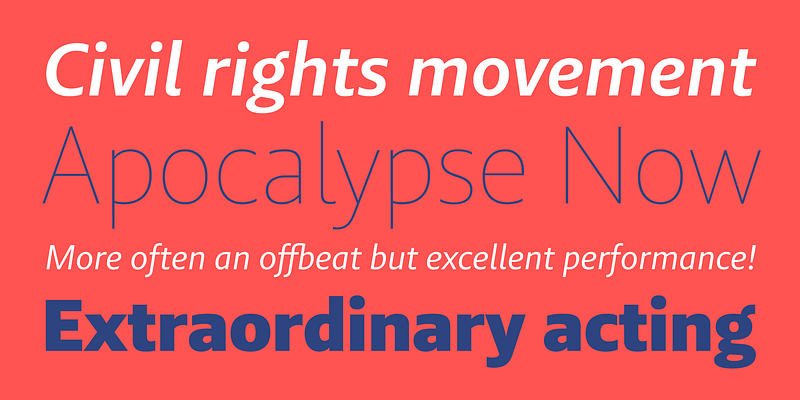
Brando Sans Font Free Download
Brando Sans Font Free Download is a sleek, modern sans-serif typeface known for its clean lines and geometric precision. With a bold and contemporary aesthetic, it is perfect for a wide range of projects such as branding, logos, websites, advertising, and editorial designs that require a fresh, professional look.
Brando Sans offers excellent readability and versatility, working seamlessly in both large display settings and smaller body text. It integrates effortlessly with design tools like Adobe Illustrator, Photoshop, Figma, and Canva, making it suitable for both print and digital media.